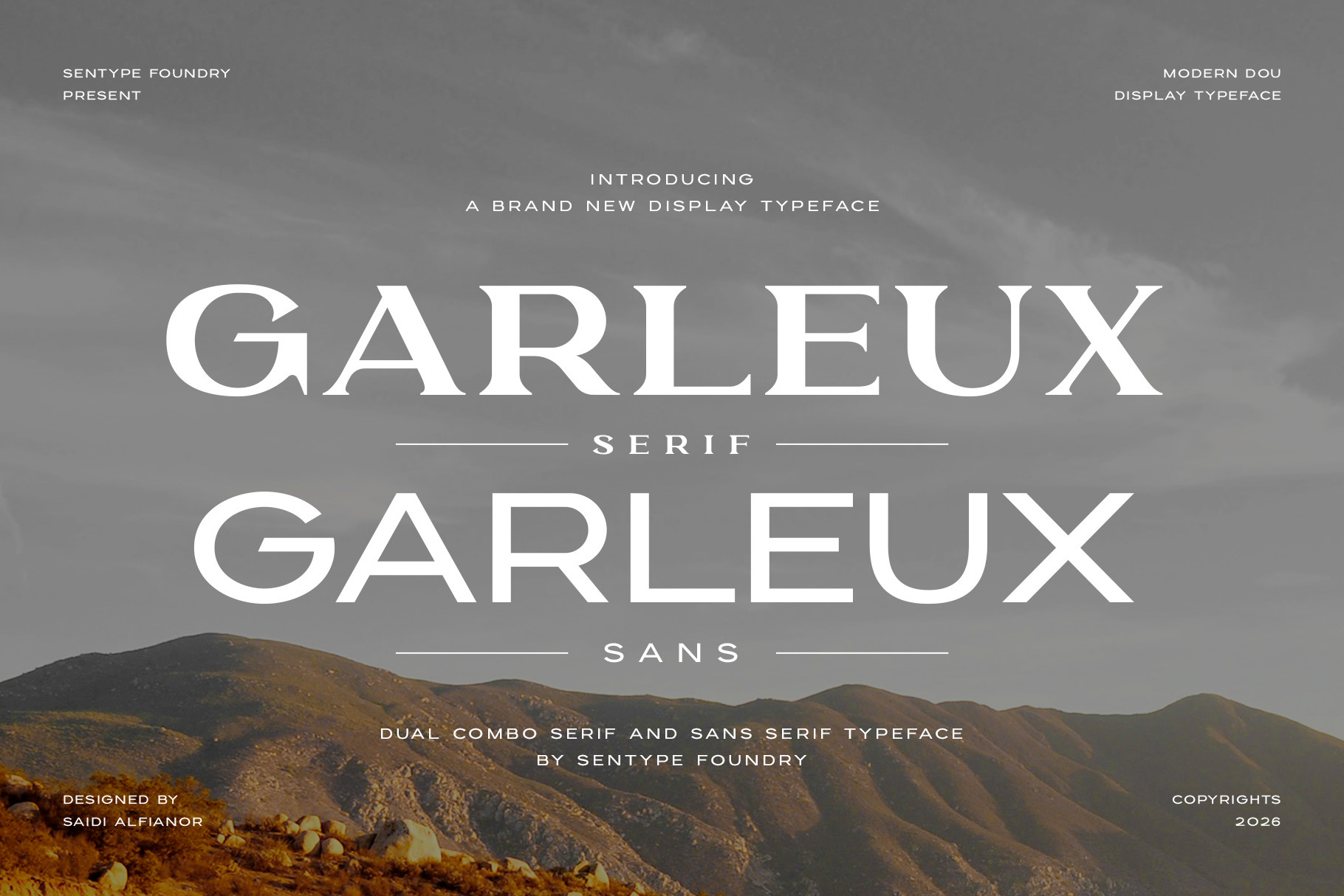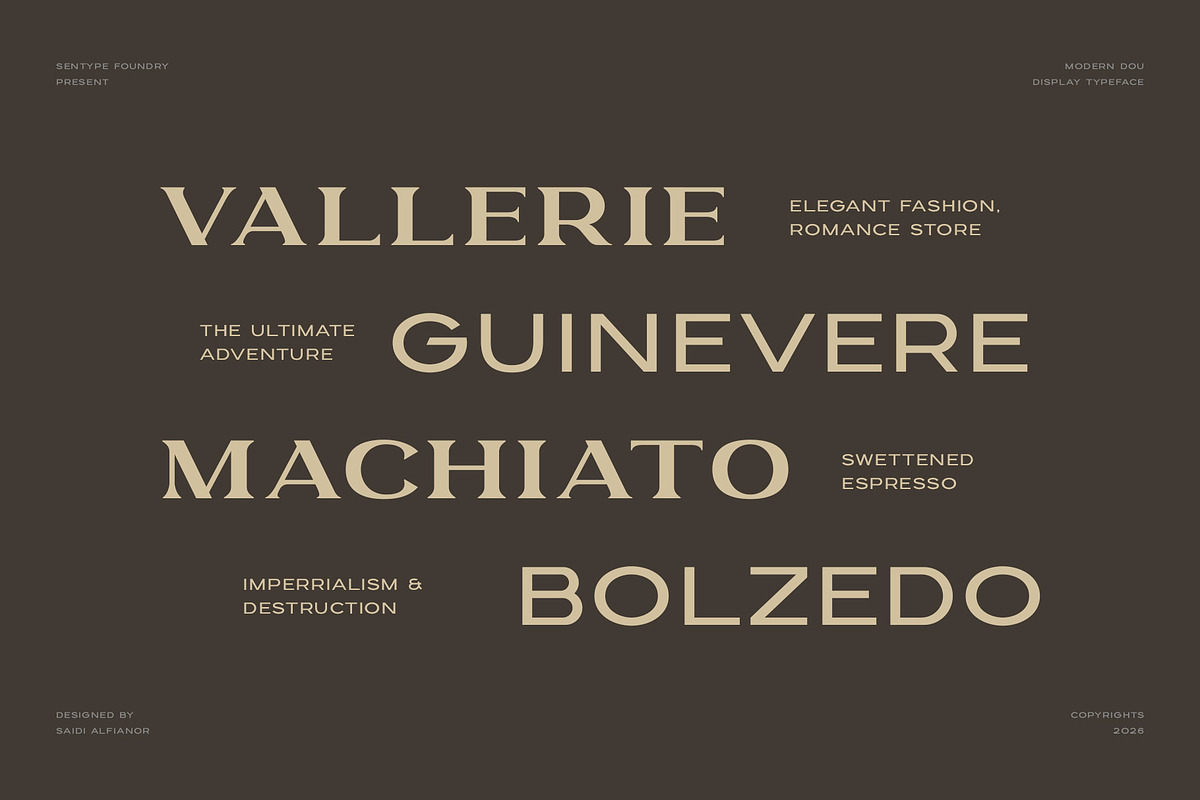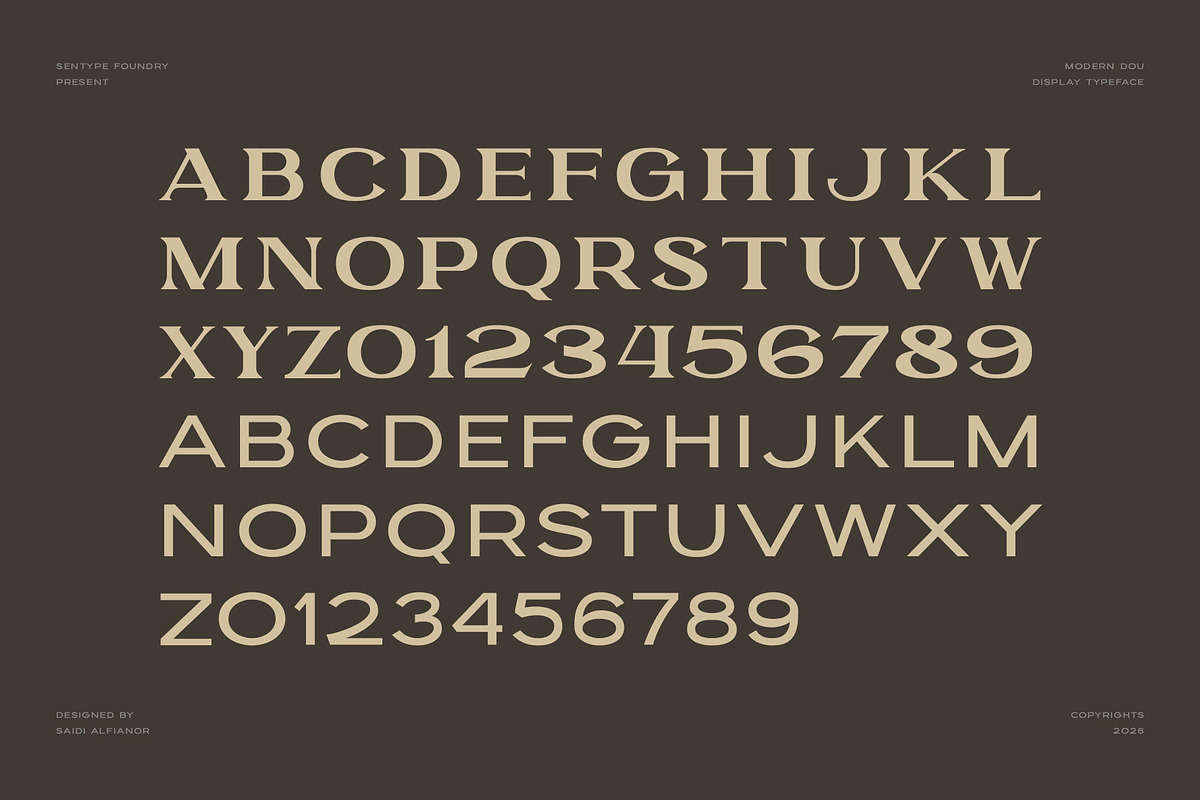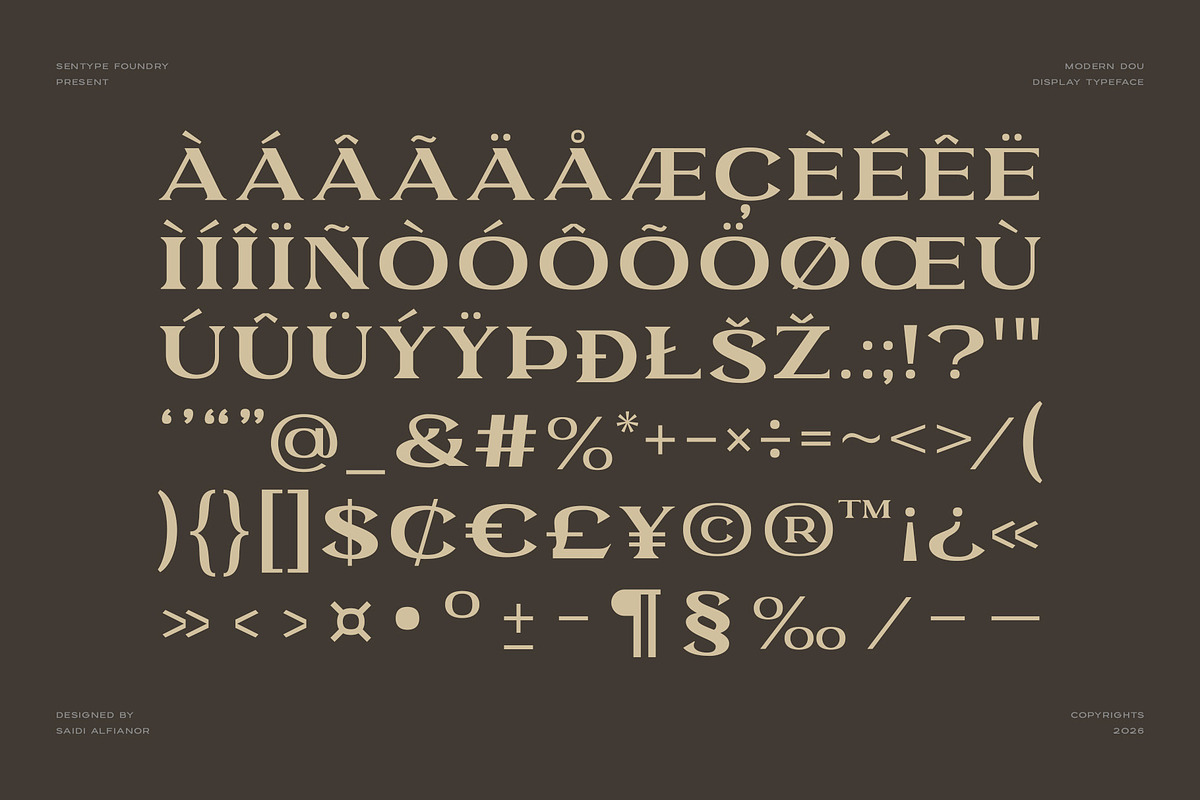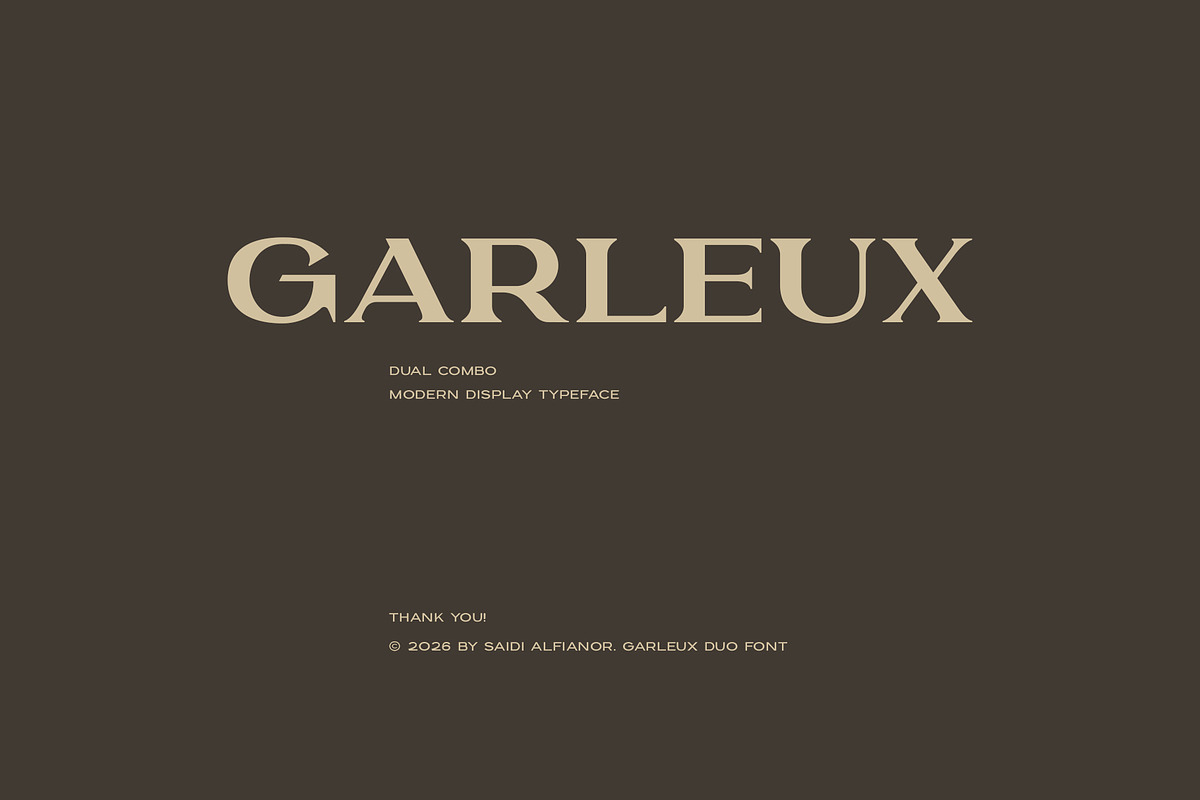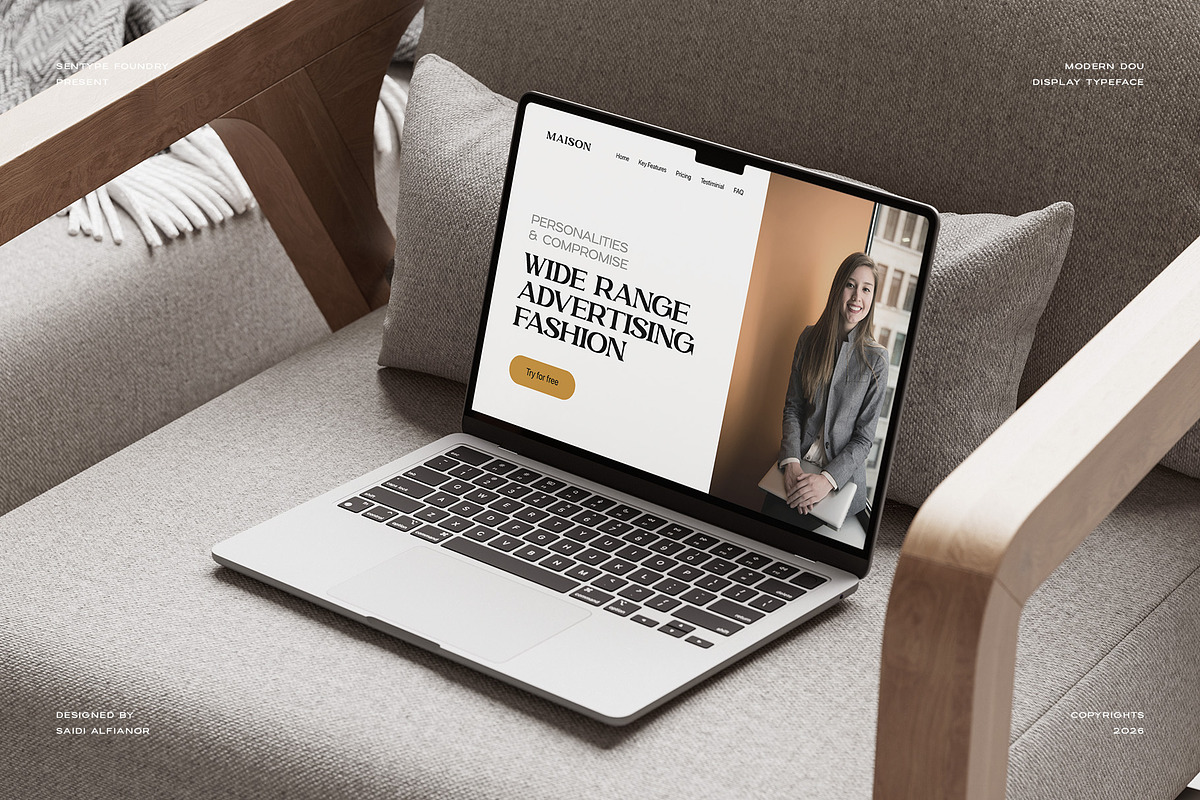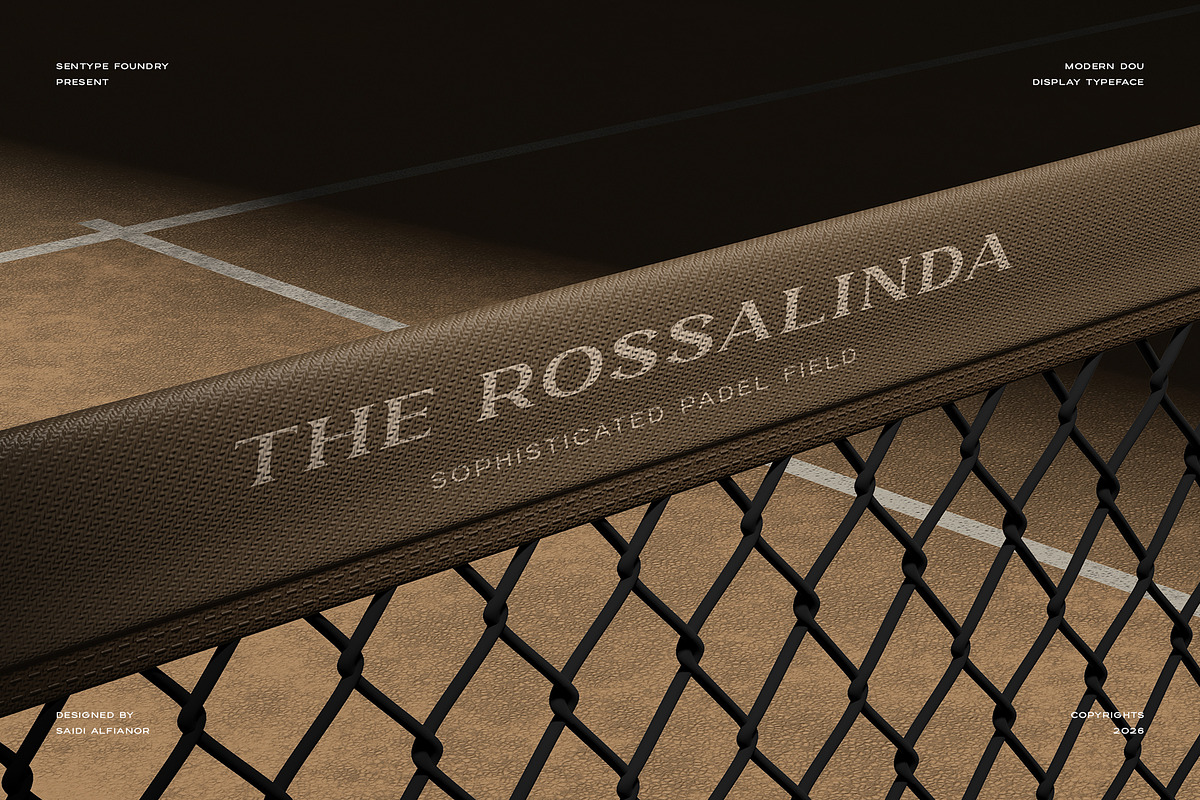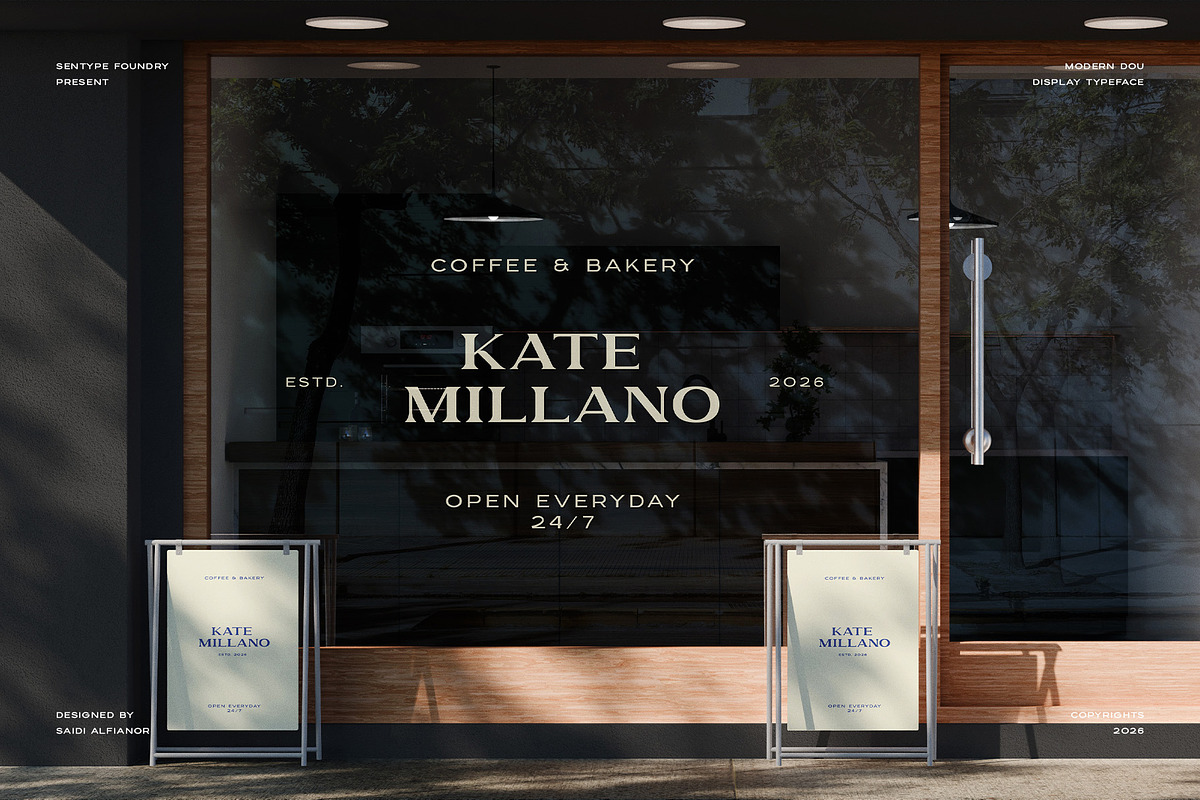
GARLEUX Duo Display Font
Garleux is a semi-wide, modern display typeface that offers both Garleux Serif and Garleux Sans variants, making it a highly versatile choice for contemporary design projects.
The letterforms exhibit a balanced, extended width that commands attention while maintaining excellent legibility across various applications. The contrast between the Sans and Serif versions can be beautifully utilized to build striking typographic hierarchies.
Whether utilized for bold headlines, sophisticated branding, or sleek editorial layouts, Garleux provides a robust and creative foundation for impactful visual communication.